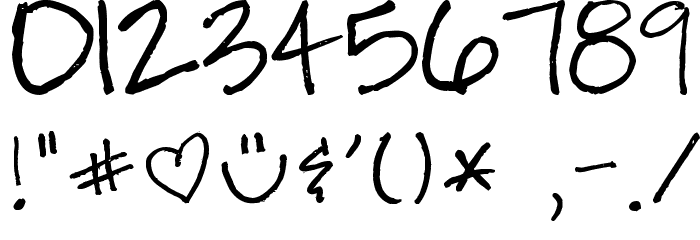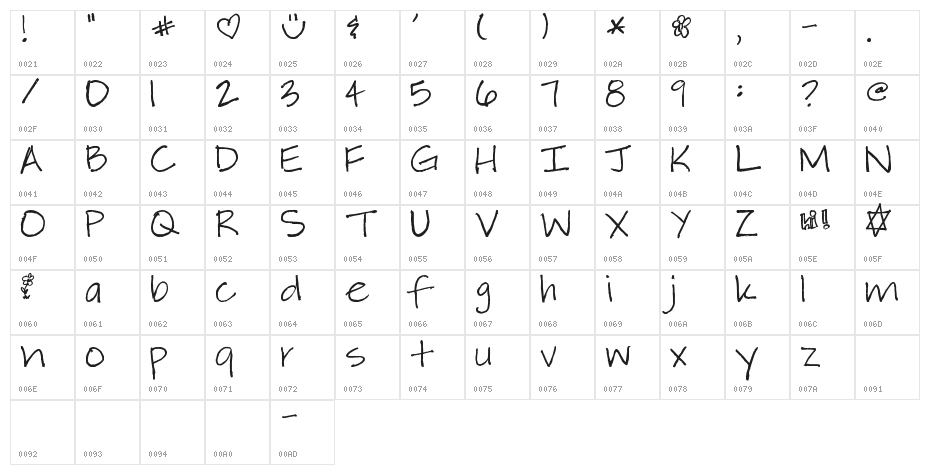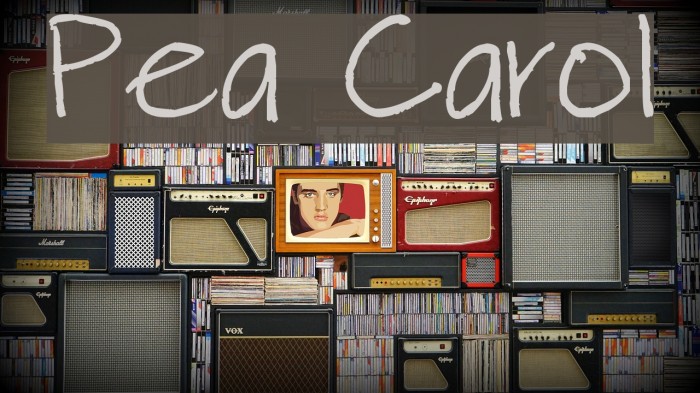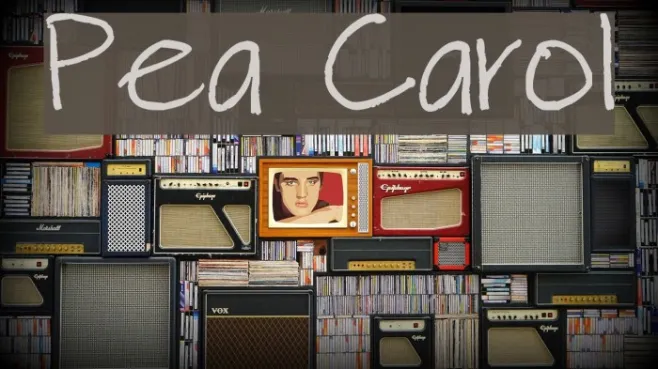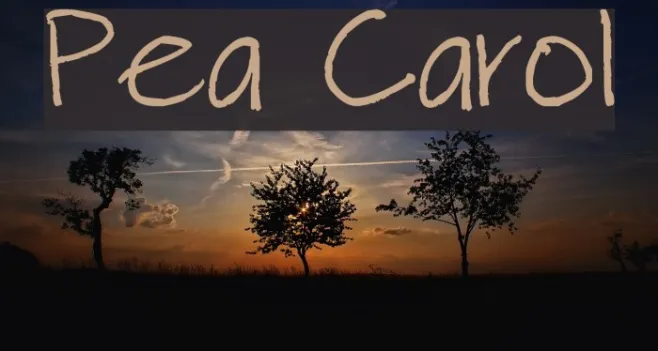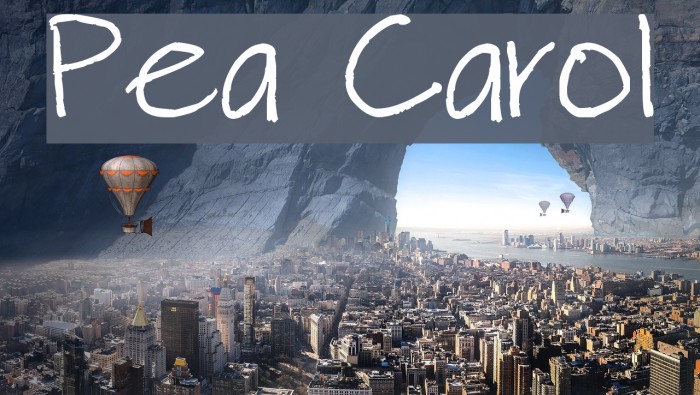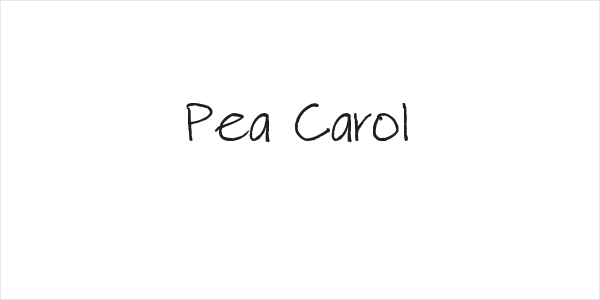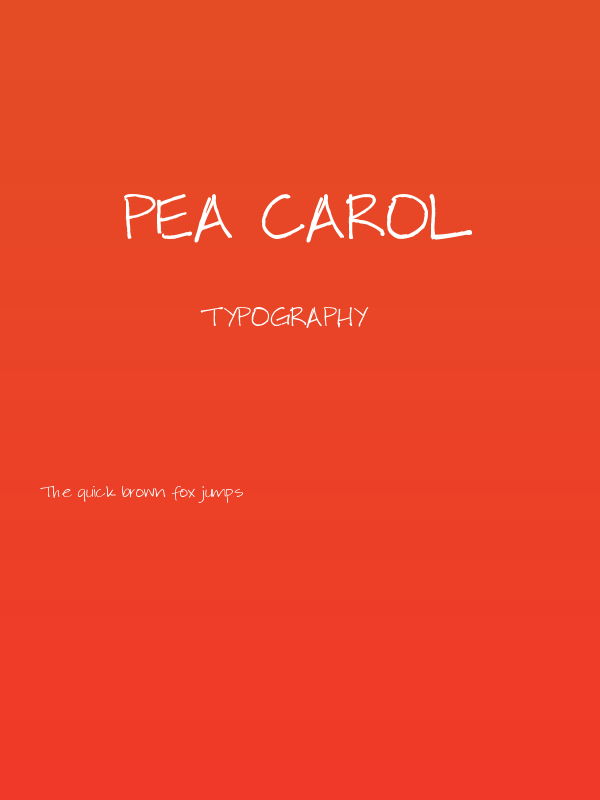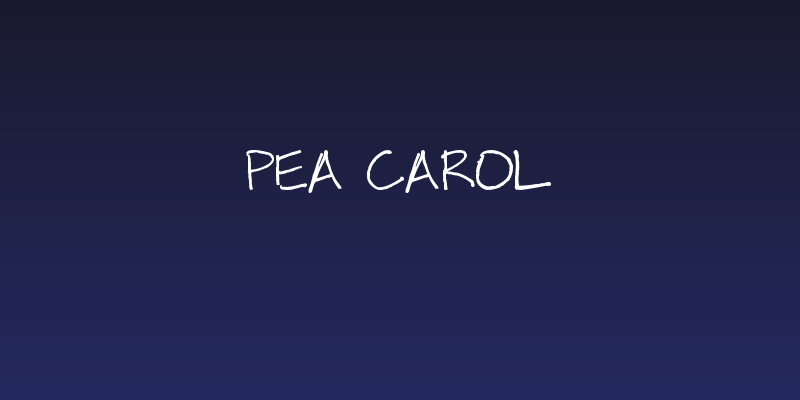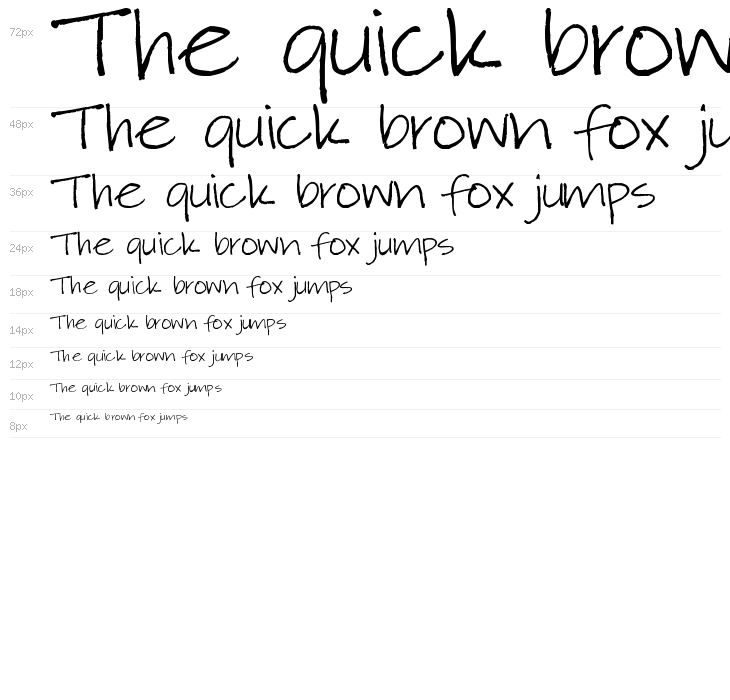
Pea Carol Font
Pea Carol Description
This font exudes a playful and casual handwritten style, characterized by its irregular strokes and slightly uneven baseline. The letters have a natural, free-flowing appearance, reminiscent of personal notes or informal correspondence. The uppercase letters maintain a consistent height, while the lowercase letters vary in size, adding to the font's whimsical charm. The numerals and special characters are crafted with the same informal touch, ensuring a cohesive look across all text. This font's organic feel makes it ideal for projects that require a personal or creative touch.